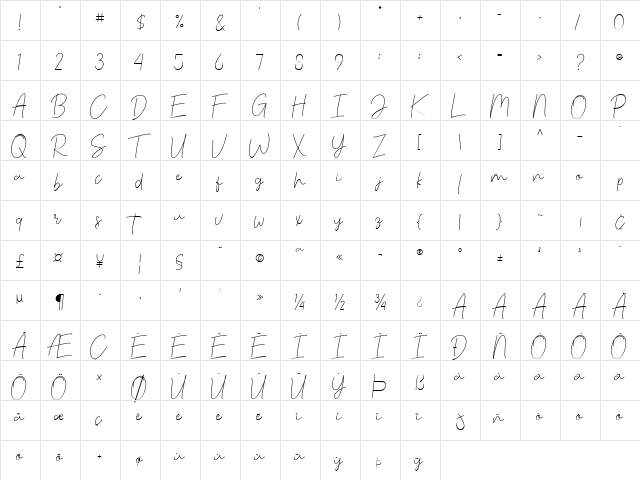
Scarlette Regular
| Foundry | Bagas Satriawan |
| Designer | Bagas Satriawan |
Design Context for Scarlette Typeface
Scarlette is a composed and adaptable typeface that performs quietly and consistently across a wide range of design contexts.